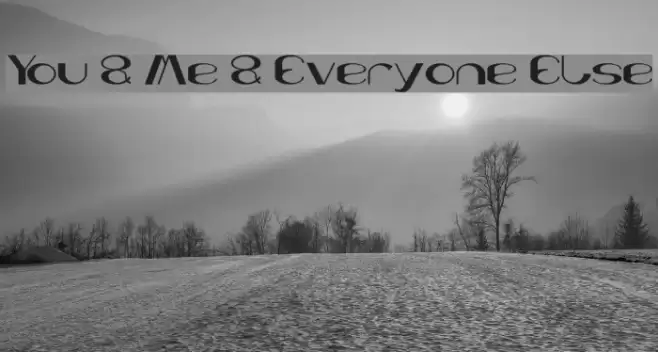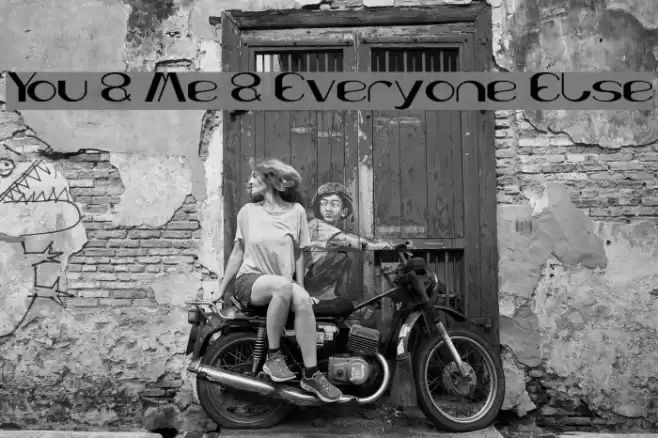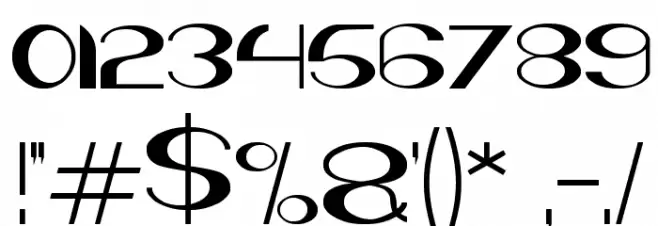
You & Me & Everyone Else Font
You & Me & Everyone Else Description
This font exhibits a modern and futuristic style with a unique blend of geometric and abstract elements. The characters are crafted with a mix of thick and thin strokes, creating a dynamic and eye-catching appearance. The uppercase letters are bold and striking, while the lowercase letters maintain a consistent flow with rounded edges and smooth curves. The numerals and special characters follow the same design principles, ensuring a cohesive look across all elements. The font's distinct style makes it suitable for projects that require a contemporary and innovative touch.
A modern, geometric font with bold, abstract elements and dynamic strokes from Uncategorized fonts.
- Proposed Projects: Ideal for branding, advertising, digital media, and futuristic design projects.
- Overall Style: Futuristic, Geometric